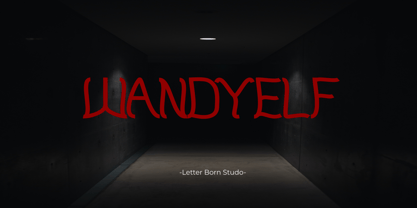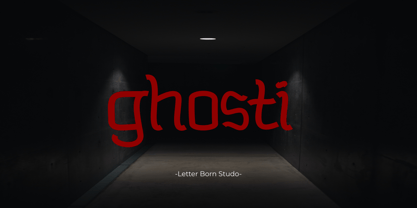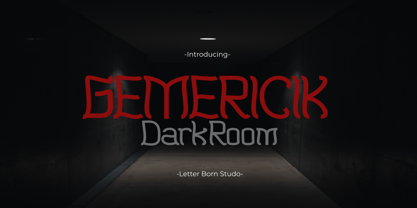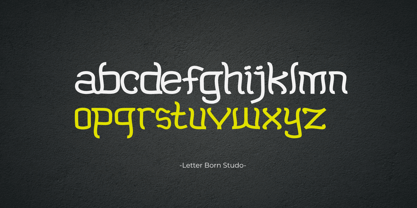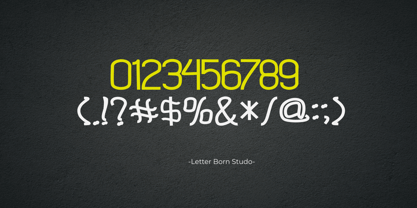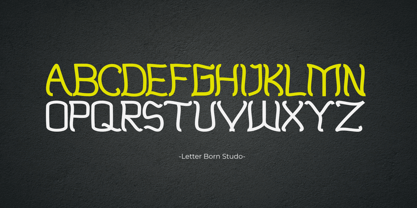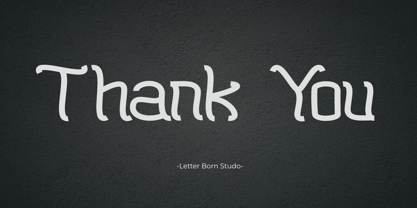
Gemericik
by Letter Born Studio
The Gemericik Font Family was designed by Firman Satrio and published by Letter Born Studio. Gemericik contains 1 styles.
Gemericik is a display font designed to capture attention. With bold shapes and artistic details, this font creates a luxurious and daring impression on posters, titles, or taglines. Its unique elegance makes every design stand out and unforgettable. Choose Gemericik to elevate your message to the next level